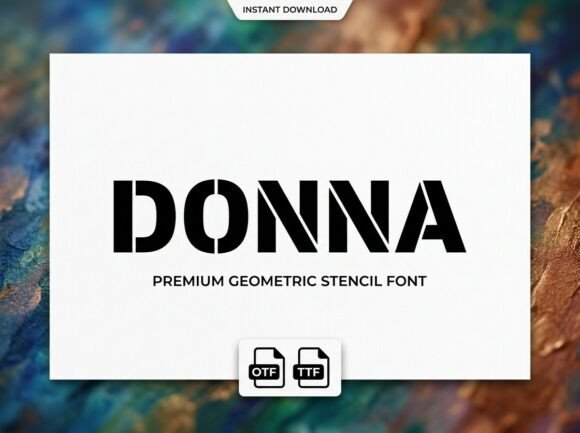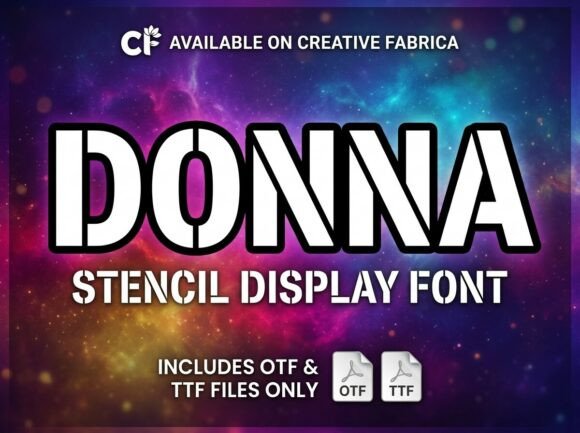
Introducing Donna Font: The Ultimate Decorative Display Font for Creators
Are you tired of using the same old fonts for your designs? Look no further! Donna Font is a stunning decorative display font that is sure to grab attention and take your creations to the next level. With its unique artistic elements and strong visual personality, this font is perfect for designers, crafters, and creators who want to break away from the ordinary.
What Makes Donna Font So Special?
Donna Font is a versatile font that is designed to be the center of attention. Its unique artistic elements and strong visual personality make it perfect for a variety of design projects, including bold headlines, artistic logos, and creative packaging. Whether you’re a professional designer or a crafty DIY enthusiast, this font is sure to help you create stunning designs that stand out from the crowd.
Important Note: All-Caps Display Typeface
⚠️ IMPORTANT NOTE BEFORE PURCHASE: Donna Font is an ALL-CAPS (Uppercase Only) display typeface. This means that it does not include lowercase letters. It is specifically designed for high-impact headlines, logos, and decorative initials where every letter is a work of art. If you’re looking for a font for body text or other applications that require lowercase letters, Donna Font may not be the best choice. However, if you want to create stunning headlines, logos, or titles that grab attention, this font is perfect.
Use Cases: Where to Use Donna Font
Donna Font is perfect for a variety of design projects, including:
- Headlines and Titles: Use Donna Font to create stunning headlines and titles that grab attention. Its unique artistic elements and strong visual personality make it perfect for magazines, newspapers, and online publications.
- Logos and Branding: Create a lasting impression with a custom logo designed with Donna Font. Its strong visual personality and artistic elements make it perfect for businesses, products, and services that want to stand out.
- Packaging and Labels: Use Donna Font to create eye-catching packaging and labels that showcase your brand’s personality. Its versatility and professional finish make it perfect for food, beverage, and lifestyle products.
- Art and Craft Projects: Donna Font is also perfect for crafty DIY enthusiasts who want to add a personal touch to their art and craft projects. Use it to create stunning titles, captions, and quotes that add a touch of elegance and sophistication.
Why Choose Donna Font?
Donna Font is a high-quality decorative display font that offers a unique combination of artistic elements and technical versatility. Here are just a few reasons why you should choose Donna Font for your next design project:
- Unique and Eye-Catching: Donna Font is designed to grab attention and make a lasting impression. Its unique artistic elements and strong visual personality make it perfect for designs that need to stand out.
- Professional and Polished: Despite its decorative nature, Donna Font maintains a professional and polished finish that is perfect for businesses, products, and services that want to look their best.
Donna Font is a stunning decorative display font that is perfect for creators who want to break away from the ordinary. With its unique artistic elements, strong visual personality, and technical versatility, this font is sure to help you create stunning designs that grab attention and make a lasting impression. Whether you’re a professional designer or a crafty DIY enthusiast, Donna Font is a great addition to your font library.